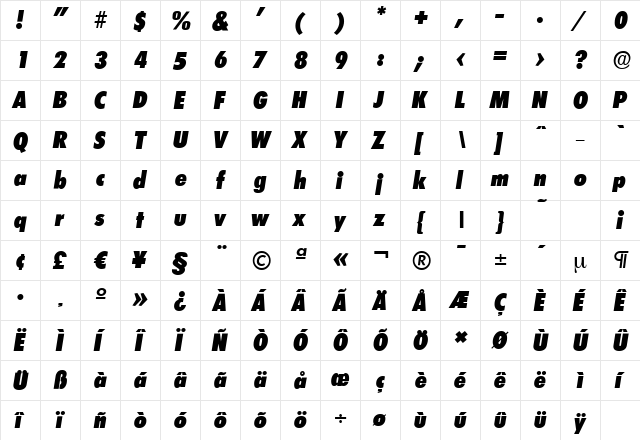
LimerickCdSerial-Heavy Italic Font Preview
LimerickCdSerial-Heavy Italic
Design Context for LimerickCdSerial-Heavy Typeface
LimerickCdSerial-Heavy takes a measured approach to typography — its balanced proportions and neutral character make it a reliable workhorse for both digital and print work. The slanted form adds forward momentum and visual energy.
Pro Tip: Try LimerickCdSerial-Heavy for annotation and caption copy alongside an upright companion — the contrast in angle creates a dynamic but ordered typographic system.